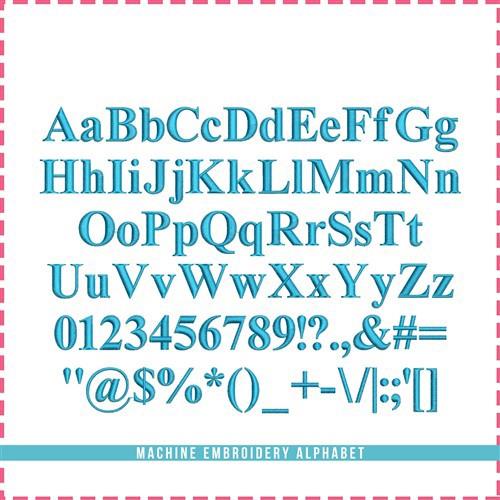
Maya Kreations is happy to present Times New Roman Bold Font machine embroidery font which has Classic block embroidery font suitable for bold text on items like tote bags or hoodies. Available in 17 sizes from 0.25 to 7. Formats include PES, DST, and 8 others in Home Format. included. If you would like to view more embroidery fonts and alphabets please search our embroidery fonts page.